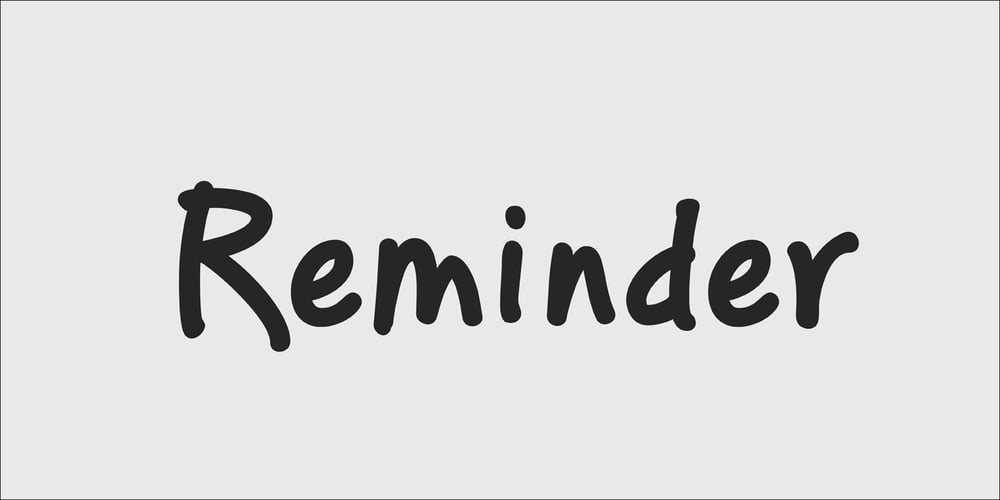
PF Reminder Pro Font Family was designed by Panos Vassiliou and published by Parachute. PF Reminder Pro contains 3 styles and family package options. Use Reminder to add a homey and personal touch to your notes and messages. Whether it is a note to your loved ones or a colleague at the office, this is the typeface to use. But don’t take our word for it. The applications of this typeface are endless. Since its first release back in 2003, we have seen it being used for anything from banking to automobiles. And now, with this “Pro” version you can communicate with a big part of this world in a way you always wanted. PF Reminder Pro comes loaded with 555 glyphs which support all European languages including Greek and Cyrillic.